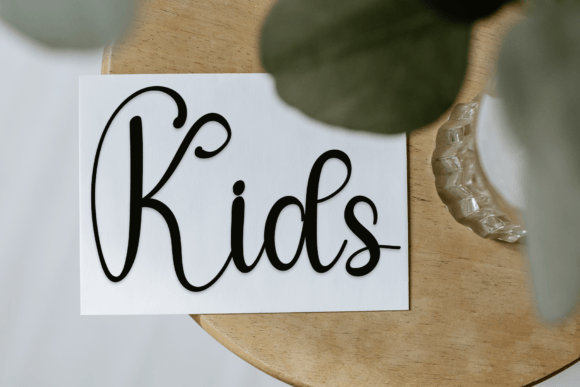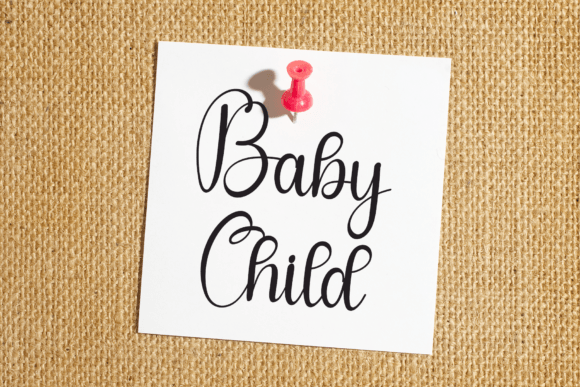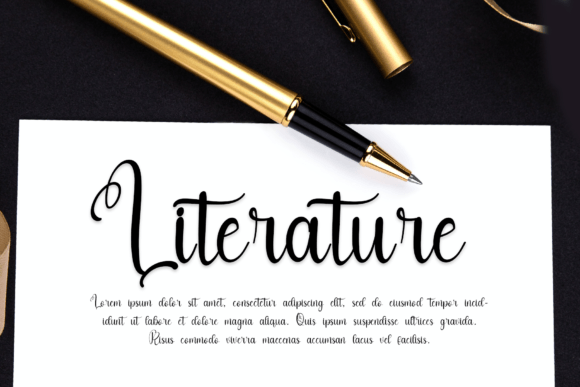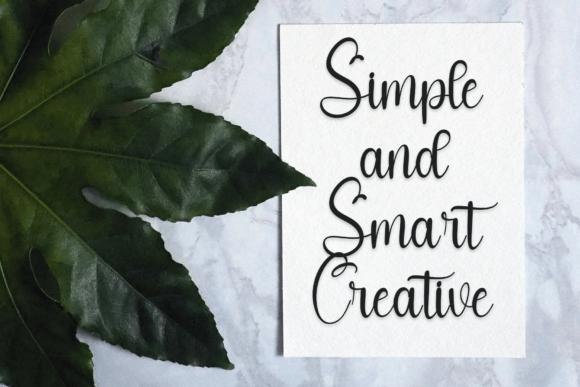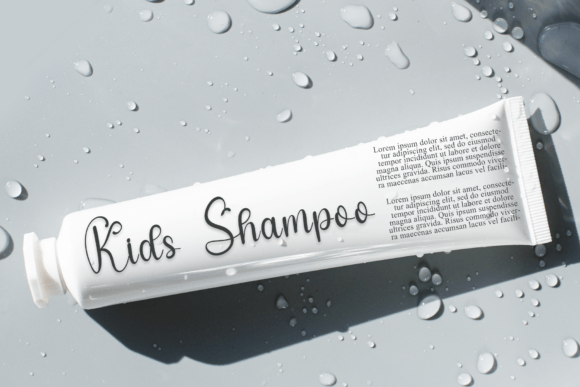
Babyboy Font: Elevate Your Designs with a Touch of Timeless Elegance
In the world of typography, a font can make all the difference in the aesthetic and appeal of a design project. For those seeking a stylish and contemporary look, the Babyboy Font stands out as an exceptional choice. This beautifully crafted handwritten font brings a breath of fresh air to the table, combining modern sensibilities with the elegance of timeless classic calligraphy.
The Essence of Babyboy Font
Babyboy Font is not just any ordinary typeface. It is a meticulously designed font that exudes a contemporary atmosphere while maintaining impeccable form. The inspiration drawn from classic calligraphy gives it a distinguished touch, making it suitable for a wide range of design projects. Whether you’re working on a logo, a branding project, an invitation, or any other creative endeavor, Babyboy Font is poised to add a significant upgrade to your design.
Key Features of Babyboy Font
- Stylish Handwritten Style: The font boasts a stylish handwritten look that adds a personal and unique touch to any project.
- Contemporary yet Classic: It strikes the perfect balance between modern design and classic elegance, making it versatile for various design needs.
- Balanced and Varied: The font characters are carefully crafted to ensure balance and variation, providing a natural flow that enhances readability and aesthetic appeal.
- PUA Encoded: Being PUA (Private Use Area) encoded, Babyboy Font offers easy access to a wide range of glyphs and ligatures, allowing for extensive creative freedom.
Applications of Babyboy Font
The versatility of Babyboy Font makes it an excellent choice for various applications. Here are a few ideas where this font can truly shine:
- Branding and Logos: Create a memorable brand identity with a logo that stands out, thanks to the font’s unique and stylish appeal.
- Stationery and Invitations: Add a touch of elegance to your wedding invitations, greeting cards, or any stationery with this beautiful font.
- Digital and Print Media: From website headers to magazine titles, Babyboy Font can elevate the look of your digital and print projects.
- Packaging: Make your product packaging more appealing and distinctive with this contemporary yet classic font.
Why Choose Babyboy Font?
Choosing Babyboy Font for your design projects comes with numerous benefits:
- Unique Appeal: Stand out from the crowd with a font that is both stylish and distinctive.
- Easy to Use: Thanks to its PUA encoding, you can easily access and use a variety of glyphs and ligatures.
- High Versatility: Suitable for a wide range of projects, from personal to professional.
- Quality and Elegance: Experience the blend of modernity and classic sophistication in your designs.
In conclusion, Babyboy Font is a remarkable addition to any designer’s toolkit. Its stylish handwritten appearance, contemporary vibe, and classic inspiration make it a versatile and valuable asset for enhancing the beauty of your projects. Whether you’re a professional designer or a crafting enthusiast, Babyboy Font offers the perfect blend of elegance, creativity, and usability. Make your designs speak with sophistication and style by incorporating Babyboy Font into your creative workflow.